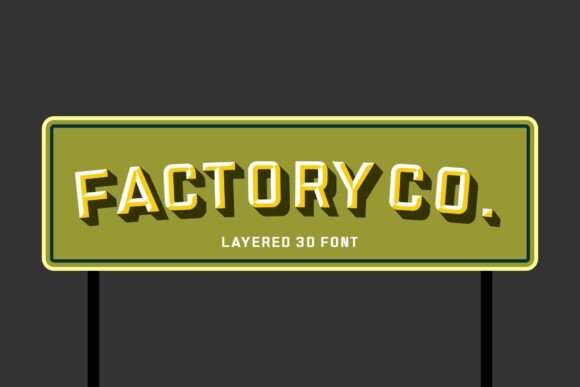
Introducing Factory Font: The Ultimate 3D-Style Font for Eye-Catching Titles and Logos
In the world of typography, fonts play a crucial role in conveying messages, expressing emotions, and creating visual identities. With the vast array of fonts available, designers and marketers are constantly on the lookout for unique and attention-grabbing typography to make their content stand out. This is where Factory Font comes into play – a bold, 3D-style font with a layered design that is sure to revolutionize the way you create titles and logos.
What is Factory Font?
Factory Font is a distinctive typeface characterized by its stacked, layered design. The letters in this font appear to be stacked on top of each other, creating a strong, three-dimensional effect. This unique design feature adds depth to the text, making it seem like it’s popping out of the screen or page. The result is a visually striking font that demands attention and makes a lasting impression.
Key Features of Factory Font
- Bold and Attention-Grabbing: Factory Font is designed to be bold and eye-catching, making it perfect for titles, logos, and headings.
- 3D-Style Layered Design: The stacked layers of the font create a three-dimensional effect, adding depth and visual interest to the text.
- Highly Versatile: Factory Font can be used in a wide range of design applications, from digital media to print materials.
- Easy to Read: Despite its bold design, Factory Font remains easy to read, even at smaller sizes.
Uses of Factory Font
Factory Font’s unique design makes it suitable for a variety of uses, including:
- Logos and Branding: Create a memorable and impactful logo with Factory Font that stands out from the competition.
- Headings and Titles: Use Factory Font to create bold, attention-grabbing headings and titles for articles, blog posts, and other written content.
- Advertising and Marketing Materials: Make your advertising and marketing materials more engaging with Factory Font’s eye-catching design.
- Signage and Displays: Factory Font is perfect for creating eye-catching signage and displays that grab attention.
Benefits of Using Factory Font
Using Factory Font in your designs offers several benefits, including:
- Increased Visibility: Factory Font’s bold design ensures that your message gets noticed.
- Improved Engagement: The unique 3D-style design of Factory Font can help increase engagement and interaction with your content.
- Enhanced Brand Identity: Factory Font can help create a strong and memorable brand identity.
- Versatility: Factory Font can be used in a wide range of design applications, making it a versatile addition to your font library.
How to Use Factory Font Effectively
To get the most out of Factory Font, consider the following tips:
- Use it Sparingly: Factory Font is bold and attention-grabbing, so use it sparingly to avoid overwhelming the reader.
- Choose the Right Color: Select a color that complements the design and ensures the text remains readable.
- Experiment with Sizes: Factory Font looks great at various sizes, so experiment to find the perfect size for your design.
- Pair it with Other Fonts: Factory Font can be paired with other fonts to create a unique and visually appealing design.
FAQs About Factory Font
- Q: What is Factory Font?
A: Factory Font is a bold, 3D-style font with a layered design.
- Q: What is Factory Font used for?
A: Factory Font is ideal for creating eye-catching titles, logos, and headings.
- Q: Is Factory Font easy to read?
A: Yes, Factory Font remains easy to read, even at smaller sizes.